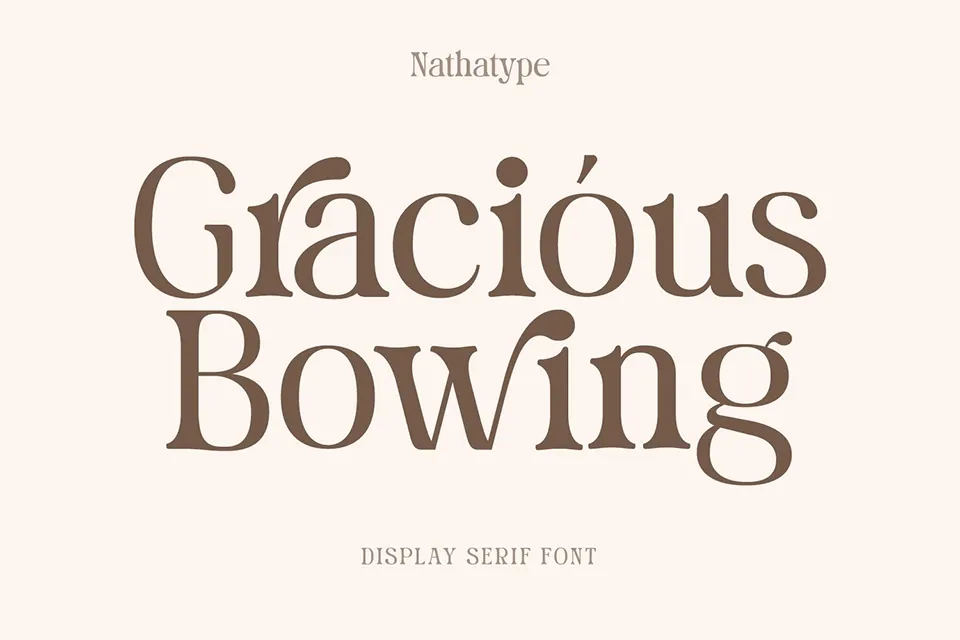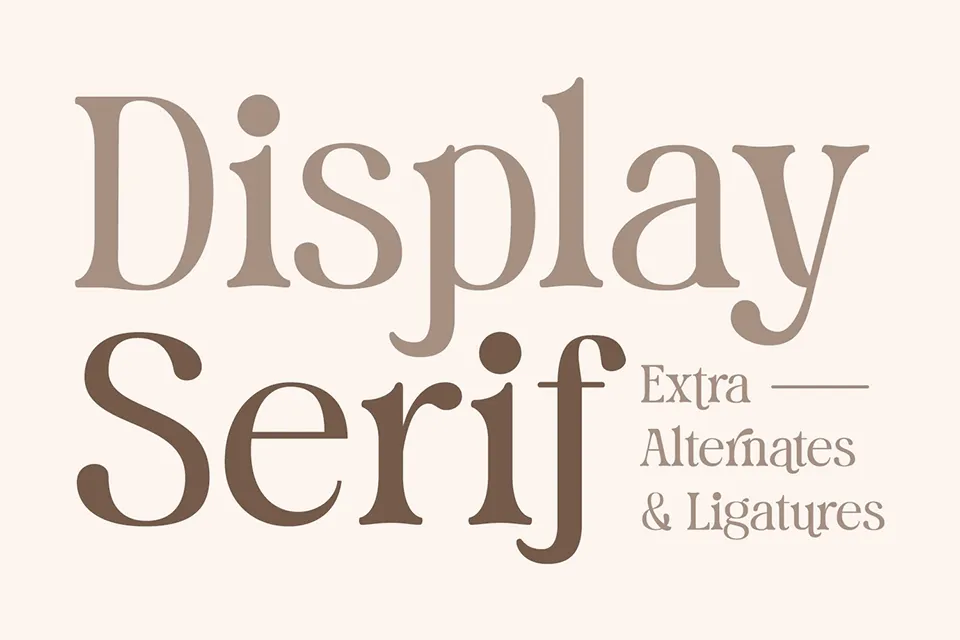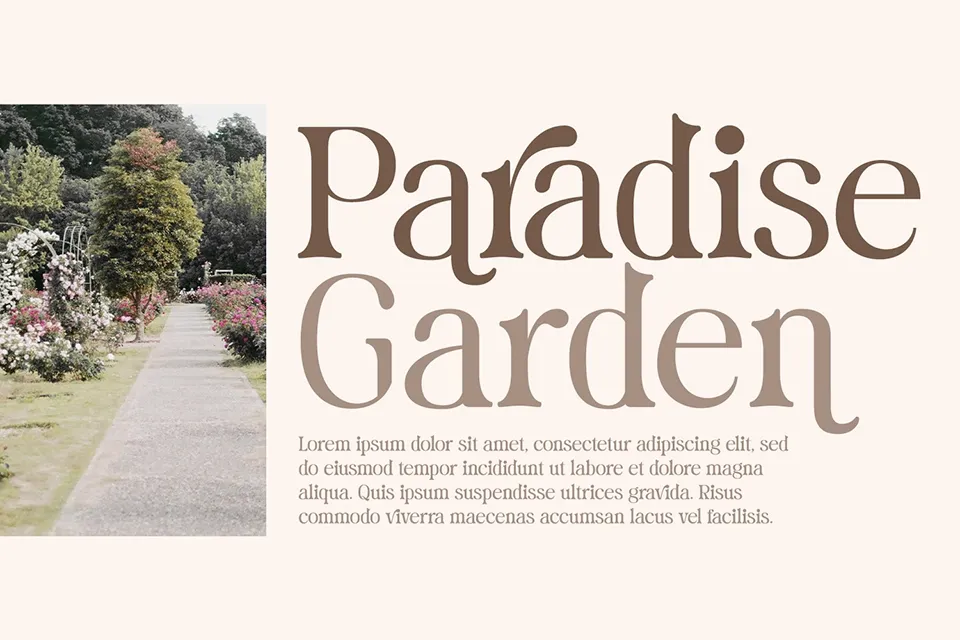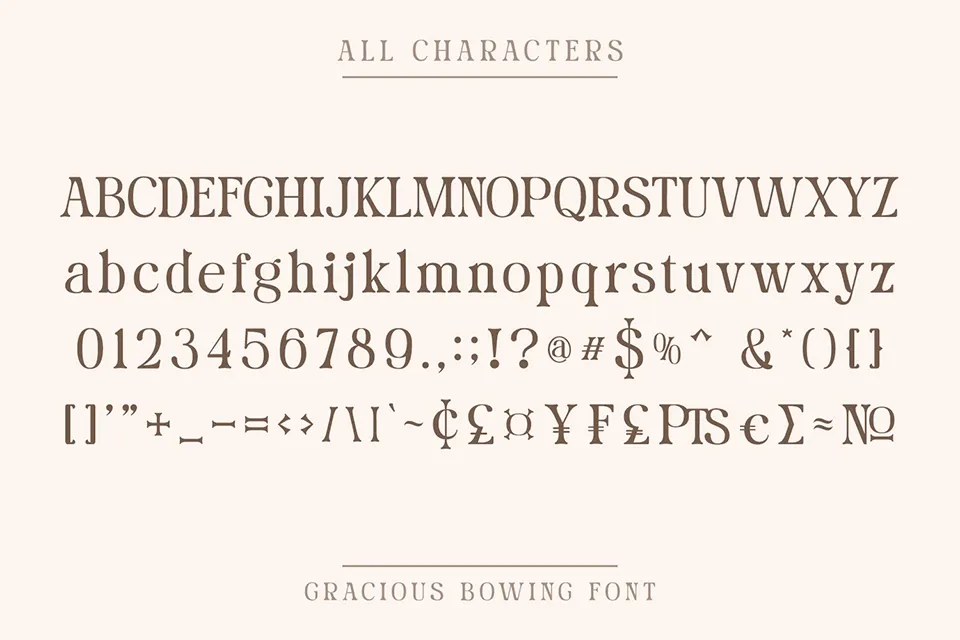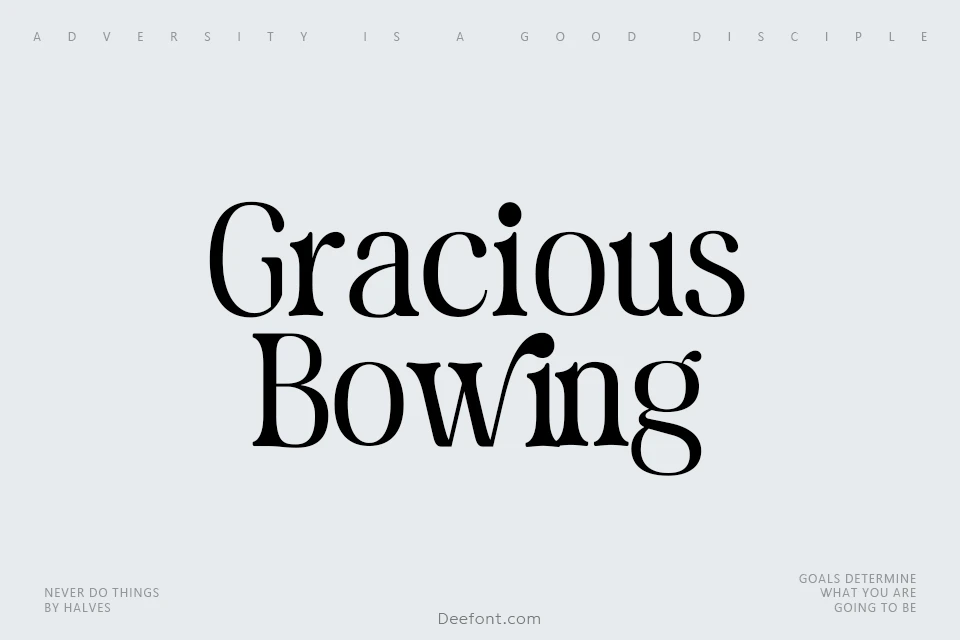
Gracious Bowing Font
Gracious Bowing Font is a meticulously crafted display serif font that combines elegance with modern simplicity. Its consistent geometry, refined proportions, and balanced line thickness make it perfect for formal yet stylish design projects, supporting multilingual characters for versatile use.